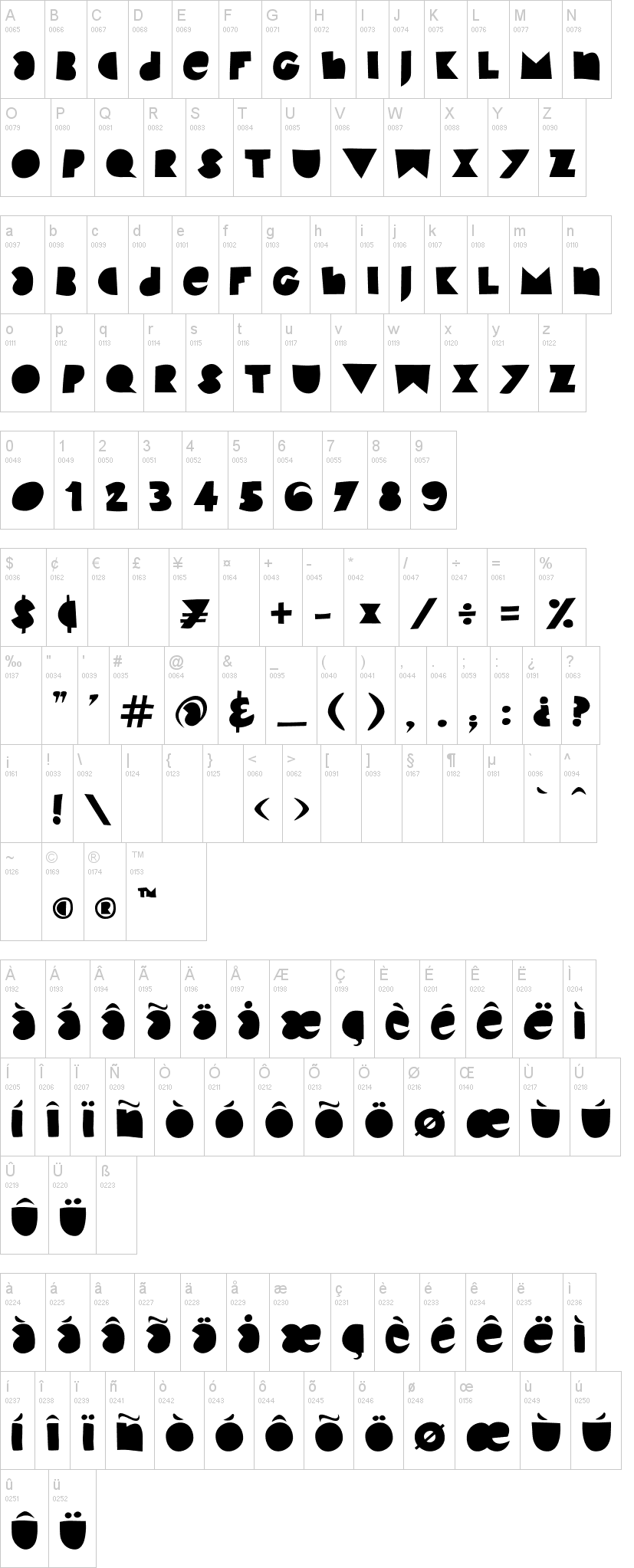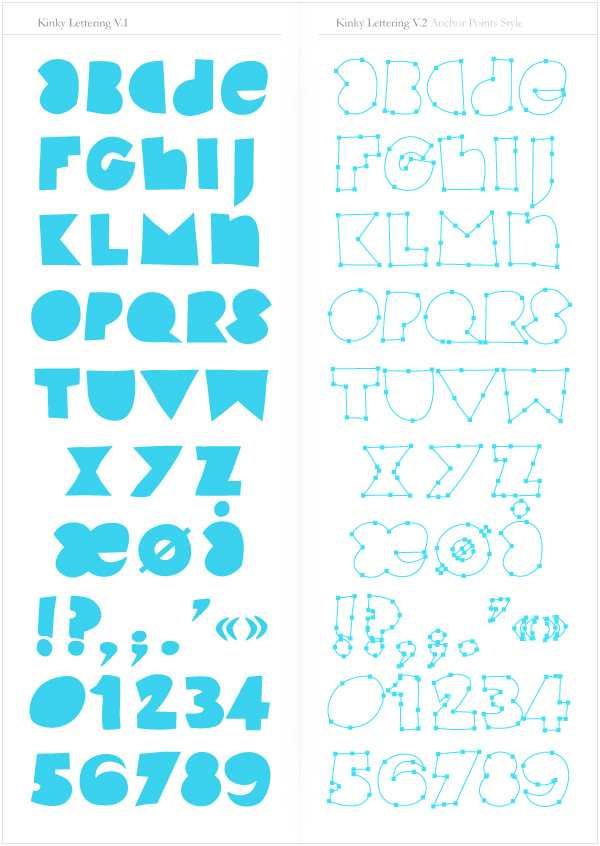
Kinky
Note of the authorKinky is a personal lettering project:
I converted the illustrator letter-shapes into a ".ttf" version (Plain version only)
NOTE: The font is far from perfect, pretty raw.